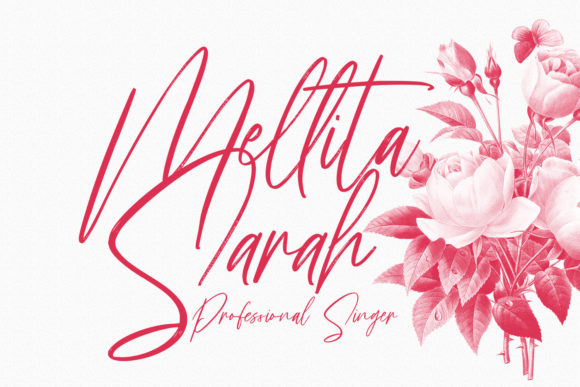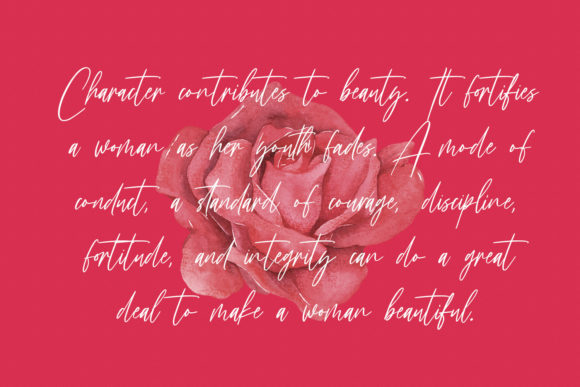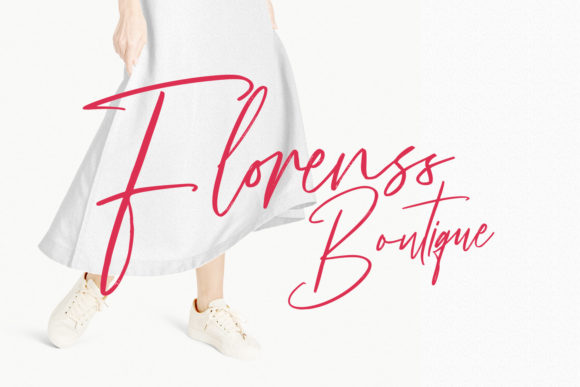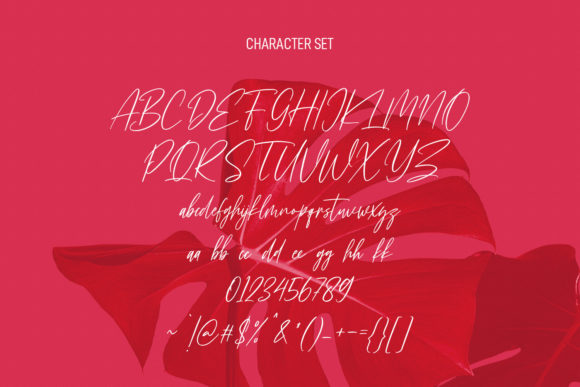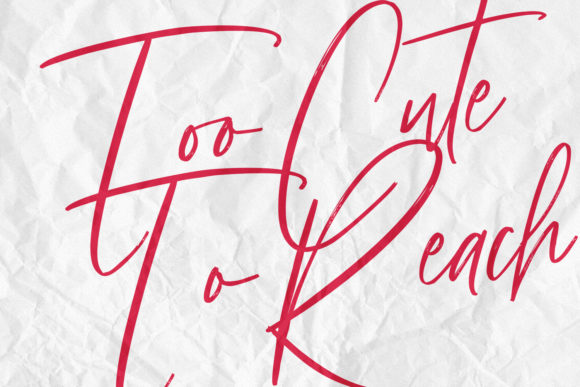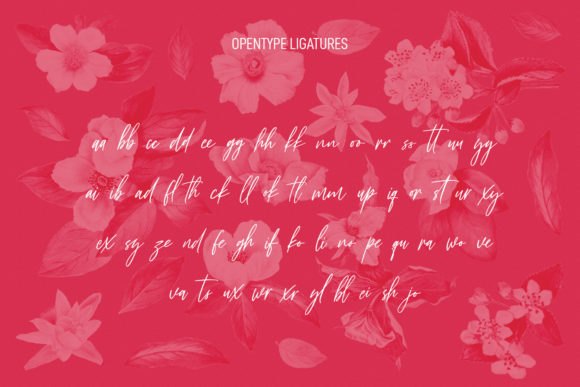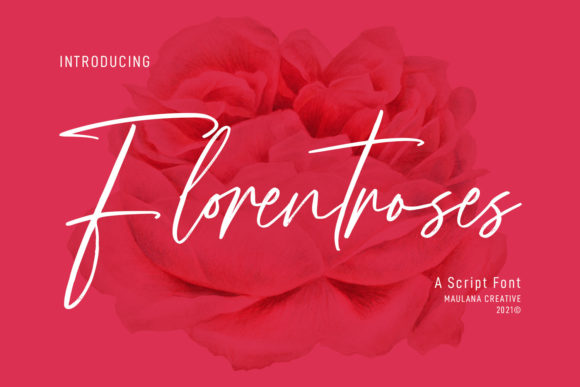
Introducing Florentroses Signature Font: Elevate Your Designs with Elegance
In the world of typography, a font can make or break the aesthetic of a design. For those seeking a touch of elegance and class, Florentroses Signature Font is a game-changer. This lovely and delicate script font is specifically crafted for designers and crafters who need a beautiful and refreshing look to enhance their creations.
The Beauty of Florentroses Signature Font
Florentroses Signature Font boasts a unique and sophisticated style that exudes refinement and poise. Its delicate strokes and intricate details make it perfect for a variety of design applications, from wedding invitations and stationery to branding and advertising materials. The font’s elegant appearance is sure to captivate audiences and leave a lasting impression.
Key Features of Florentroses Signature Font
• Delicate Script Style: Florentroses Signature Font features a beautiful, flowing script style that adds a touch of sophistication to any design.
• Elegant and Refined: The font’s intricate details and delicate strokes make it perfect for designs that require a high level of elegance and class.
• Versatile: Florentroses Signature Font can be used for a wide range of design applications, from print materials to digital media.
• Easy to Read: Despite its delicate nature, the font remains easy to read, making it perfect for body text and headings.
Why Choose Florentroses Signature Font?
With so many fonts available, why choose Florentroses Signature Font? Here are just a few reasons:
• Unique Style: Florentroses Signature Font offers a distinctive style that will set your designs apart from the rest.
• High-Quality: The font is crafted with attention to detail, ensuring a high level of quality and consistency.
Design Applications for Florentroses Signature Font
Florentroses Signature Font is versatile and can be used for a wide range of design applications, including:
• Wedding Invitations and Stationery: Add a touch of elegance to your wedding designs with this beautiful font.
• Branding and Advertising: Use Florentroses Signature Font to create sophisticated branding and advertising materials that will leave a lasting impression.
• Digital Media: The font is perfect for digital media, including social media graphics, blog posts, and website headers.
• Print Materials: Florentroses Signature Font can be used for a variety of print materials, including brochures, flyers, and business cards.
Tips for Using Florentroses Signature Font
To get the most out of Florentroses Signature Font, here are a few tips:
• Use it Sparingly: Florentroses Signature Font is a statement font, so use it sparingly to avoid overwhelming your design.
• Pair it with Other Fonts: Experiment with pairing Florentroses Signature Font with other fonts to create a unique and interesting contrast.
• Adjust the Size and Color: Play around with different sizes and colors to find the perfect combination for your design.
Florentroses Signature Font is a beautiful and elegant script font that is sure to elevate your designs. With its delicate strokes, intricate details, and versatile nature, it’s perfect for a wide range of design applications. Whether you’re a designer or crafter, Florentroses Signature Font is a great addition to your font library.